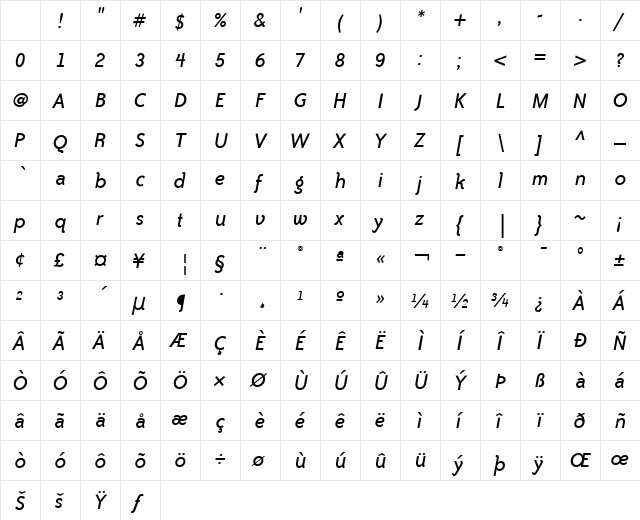
Complete Bailey Sans ITC Regular glyph index. Displaying only characters natively supported by Bailey Sans ITC Regular font.
Bailey Sans ITC is a composed and adaptable typeface that performs quietly and consistently across a wide range of design contexts.